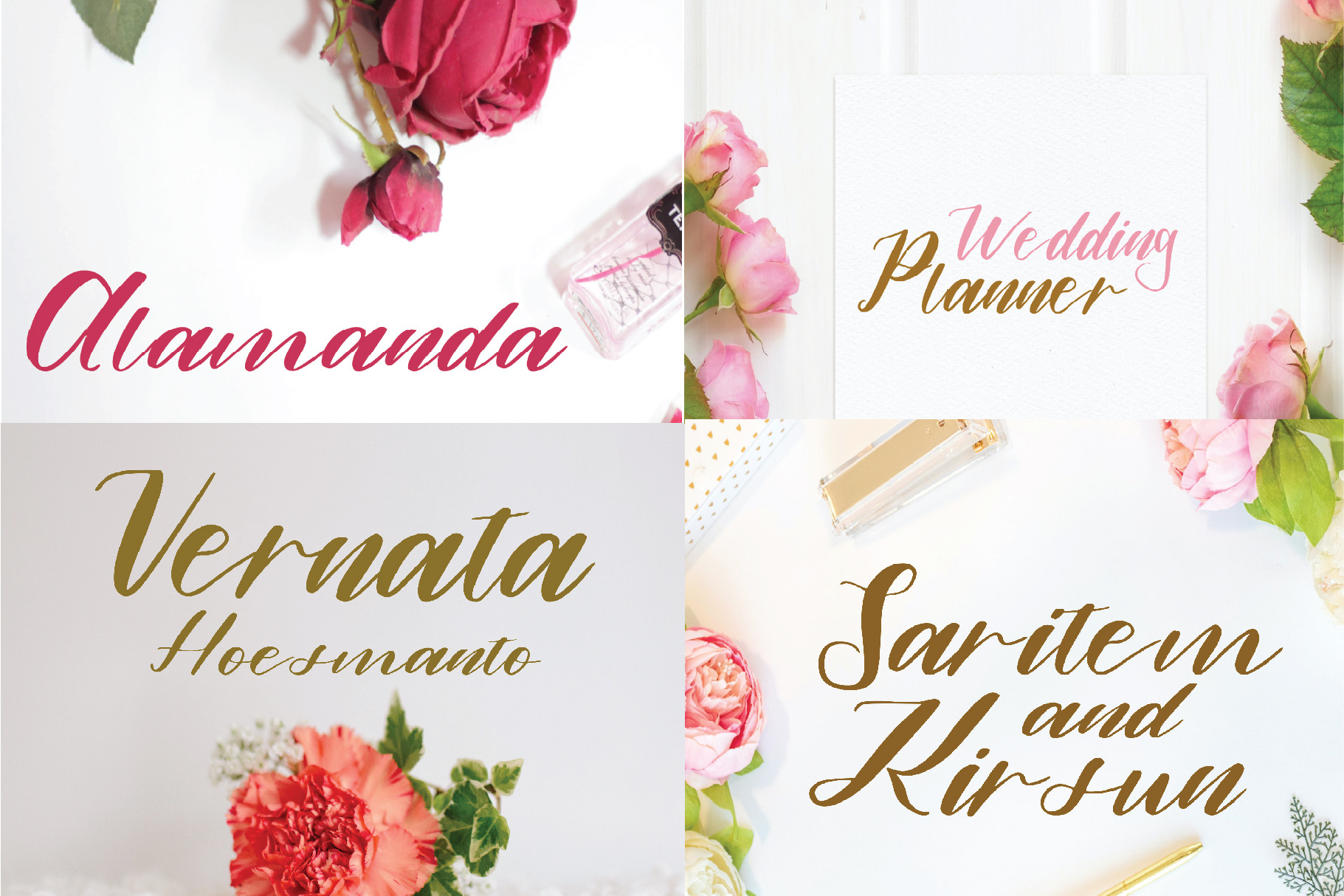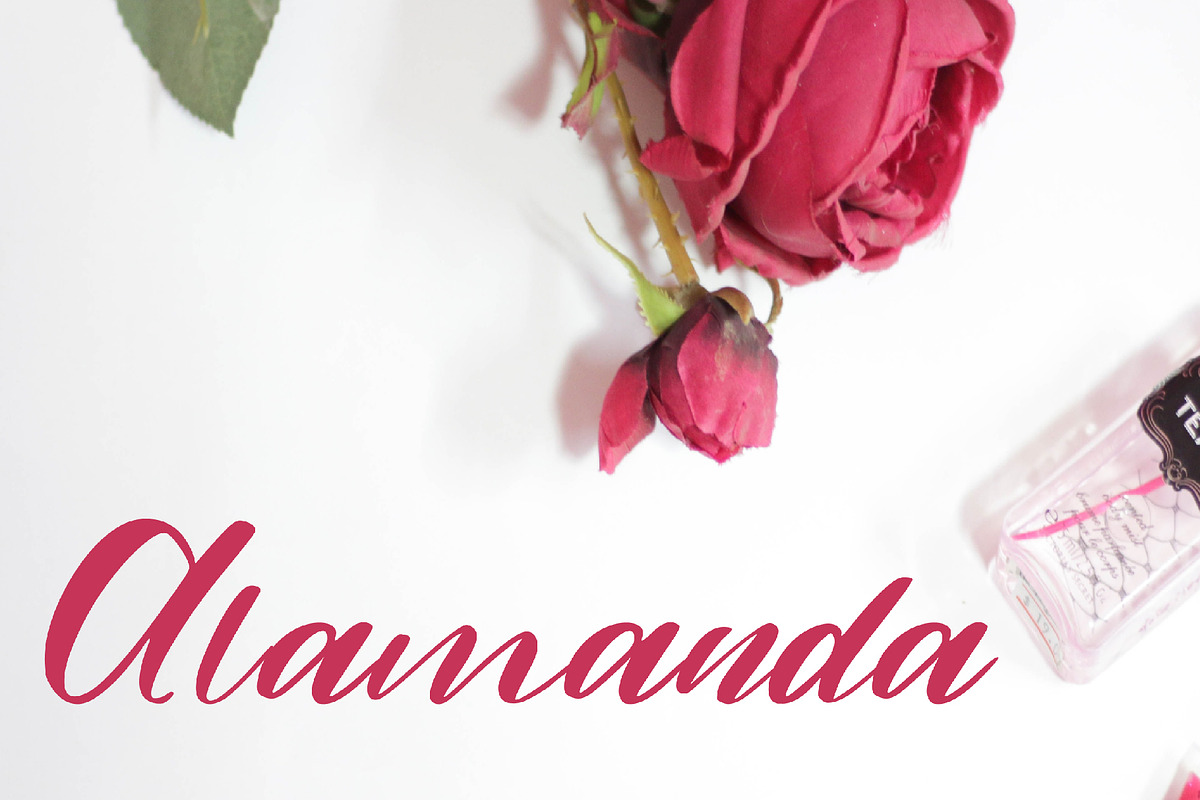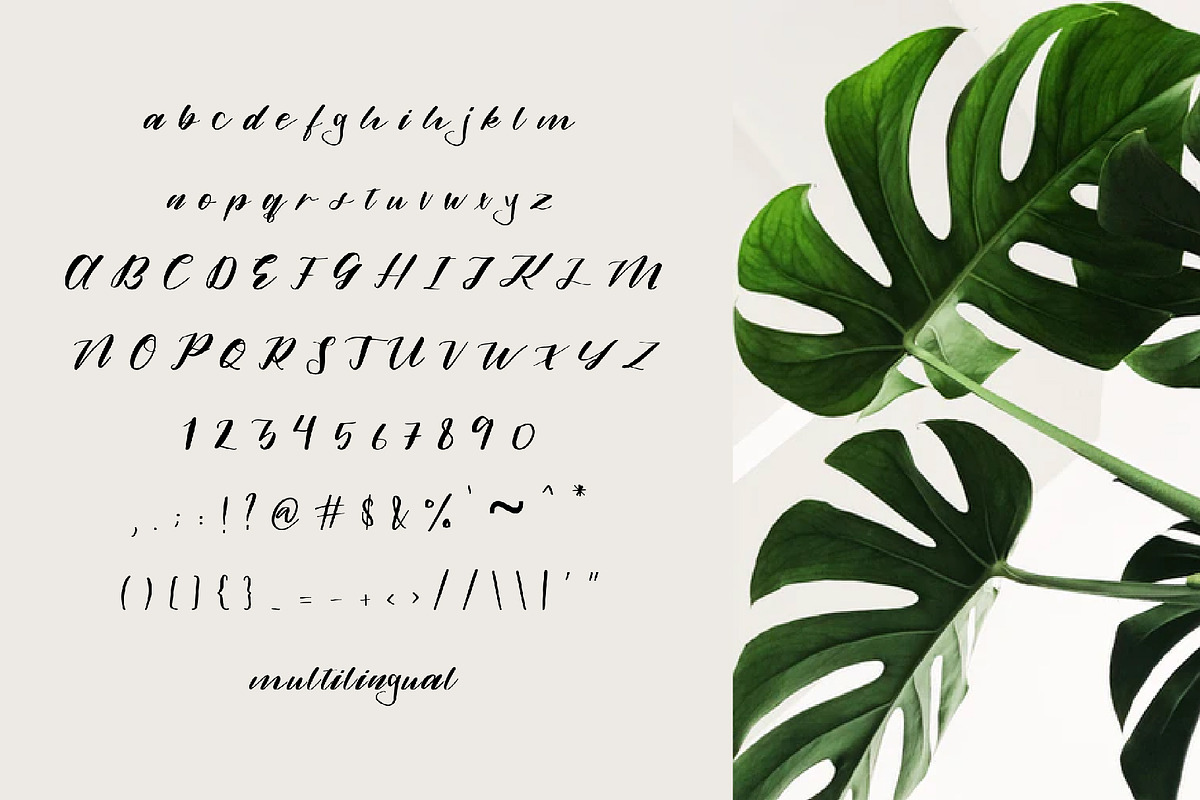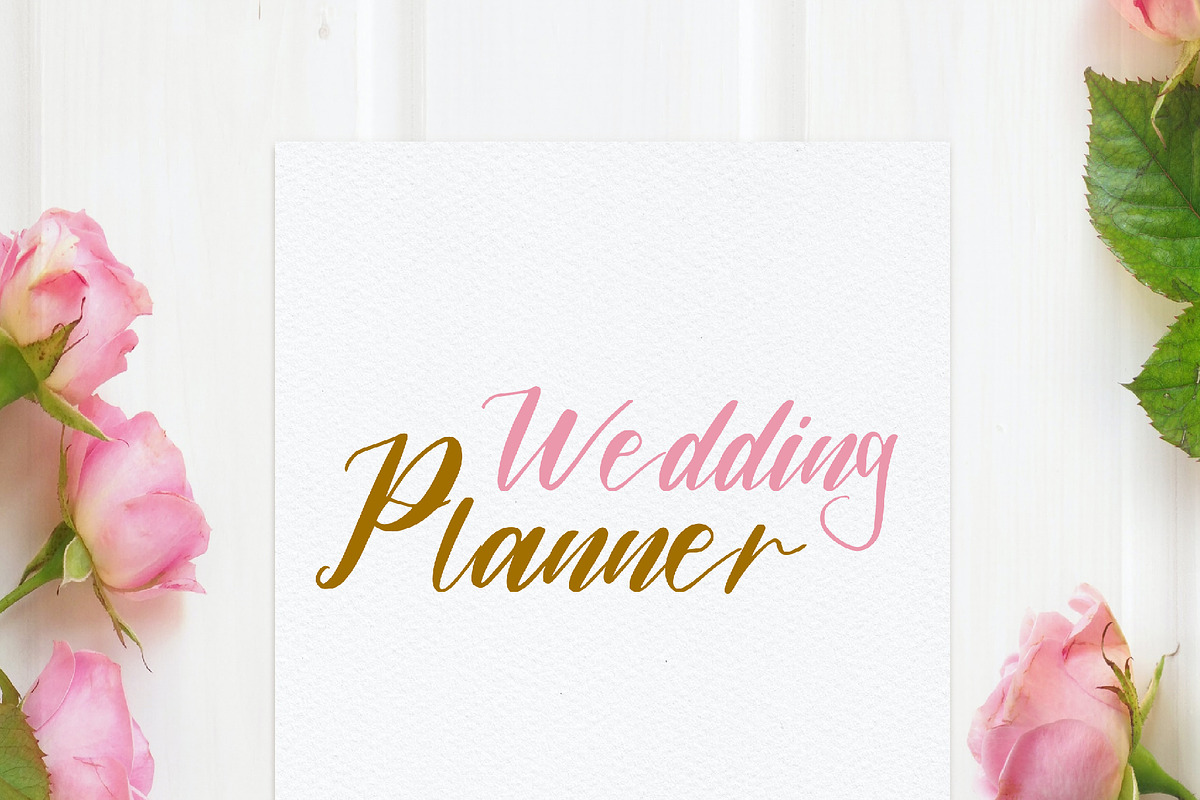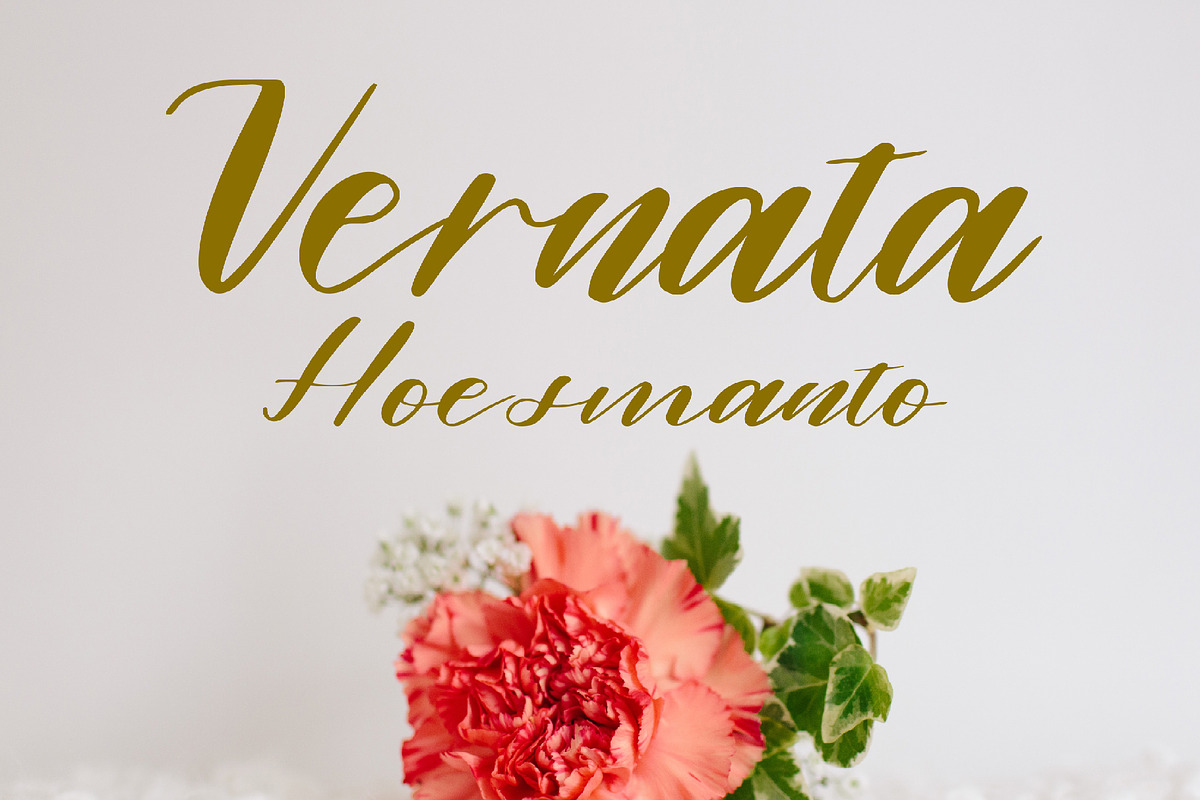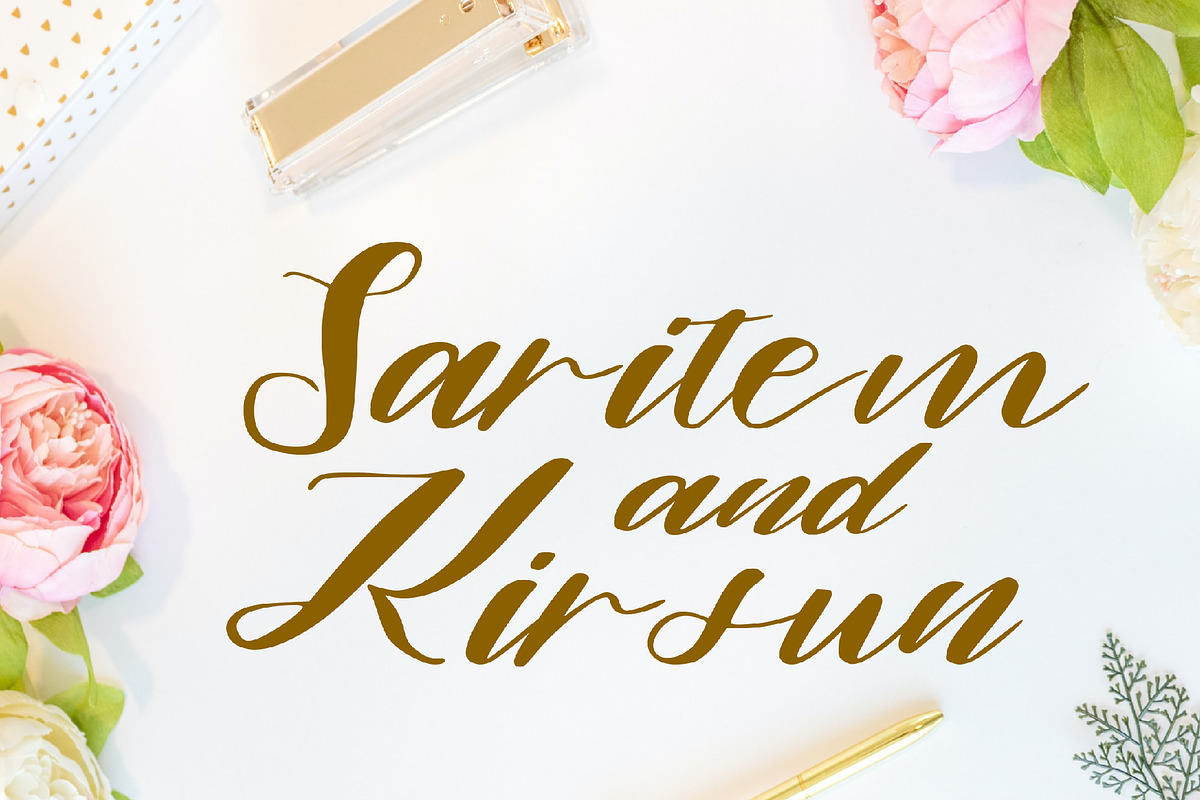
alamanda font
This type of writing is perfect for logos, fashion, stationery, magazines, menus, books, invitations, greeting cards, packaging, labels, apparel, marketing, business cards, etc. otf, ttf,woff